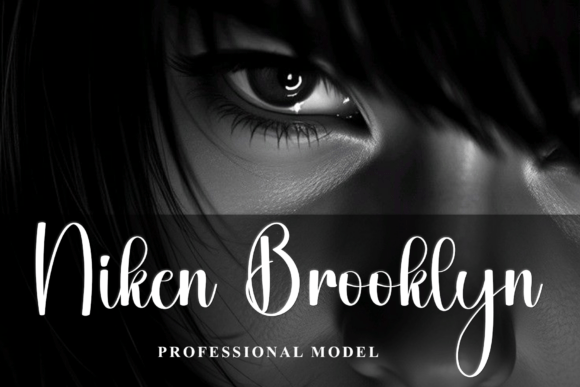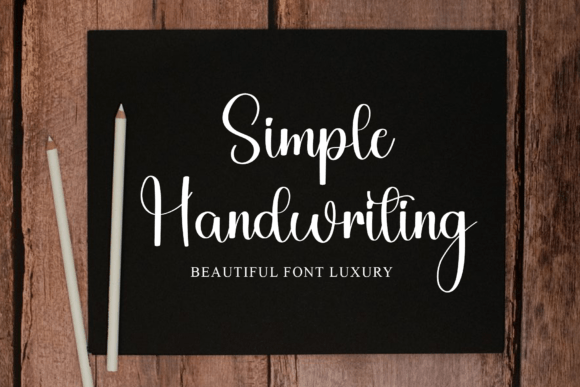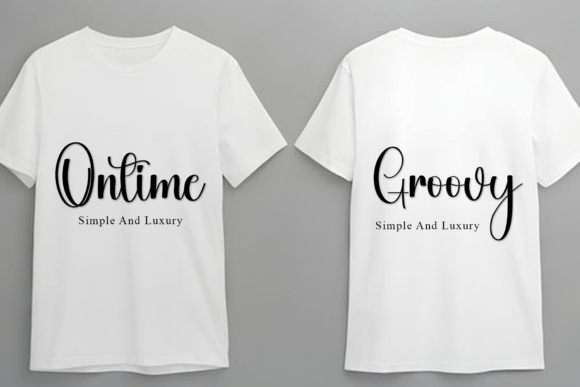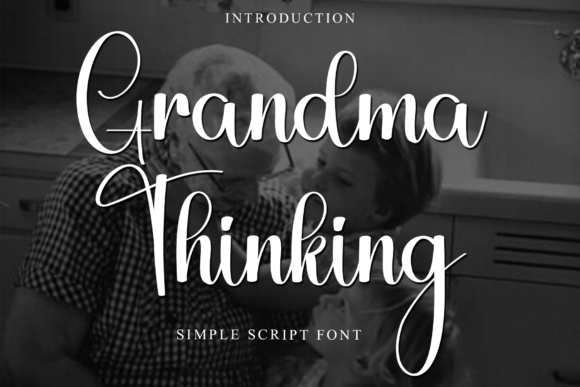
Introduction to Grandma Thinking Font
This handwritten script font blends casual charm with a modern twist, featuring fluid strokes and natural curves that mimic real handwriting.
Ideal for branding, wedding invites, quotes, and lifestyle blog graphics, it brings a personal and stylish feel to any project With its smooth flow and subtle elegance, this font is perfect for creating heartfelt and visually appealing designs.